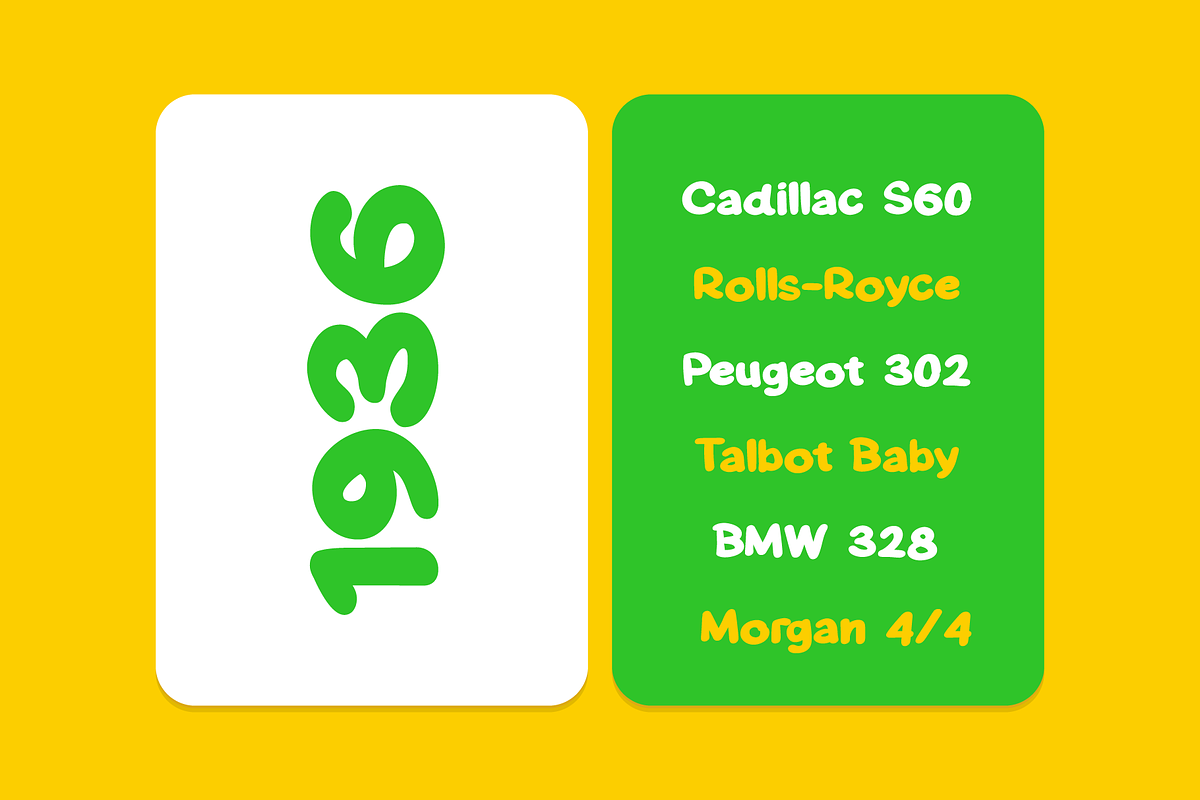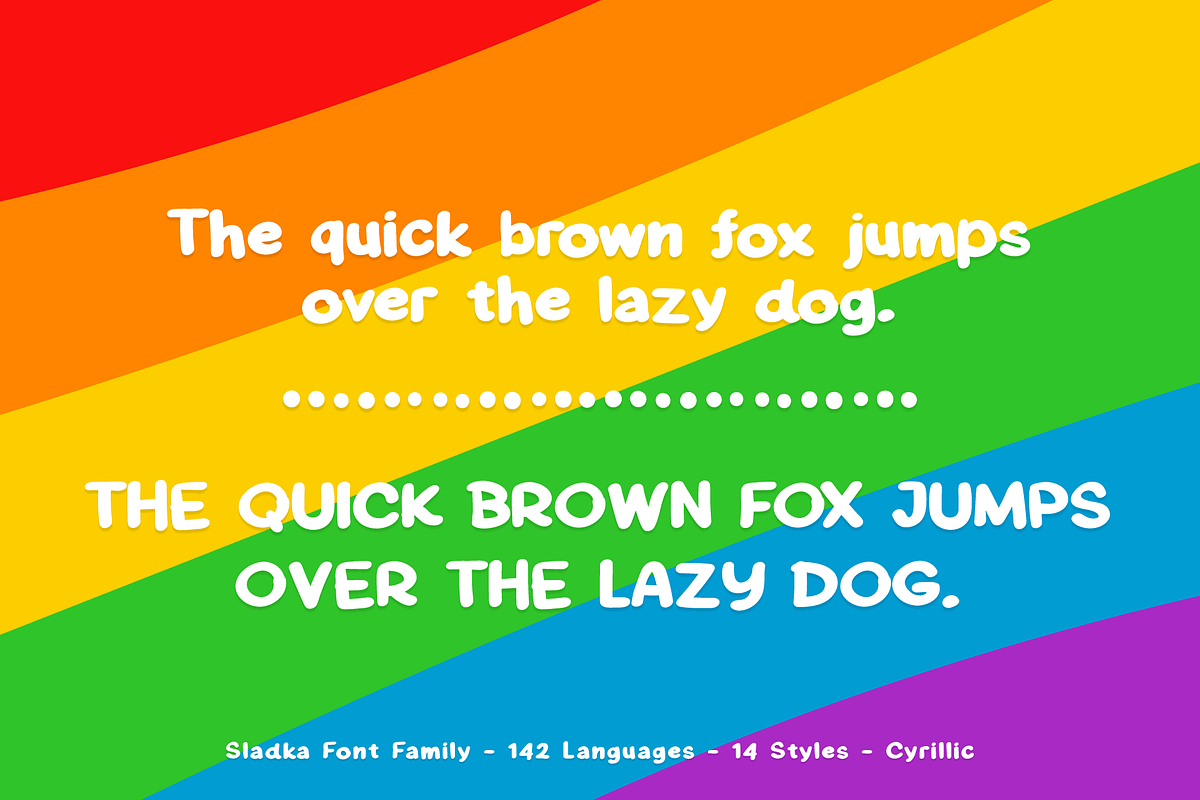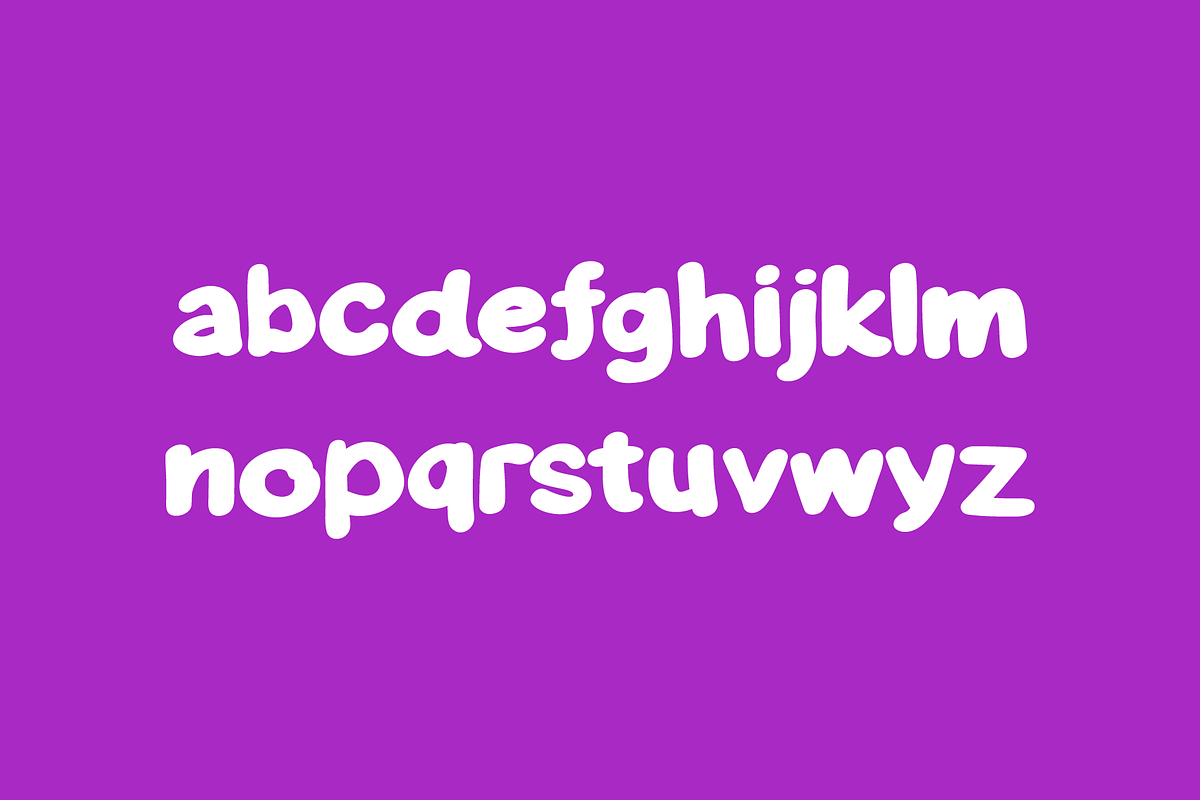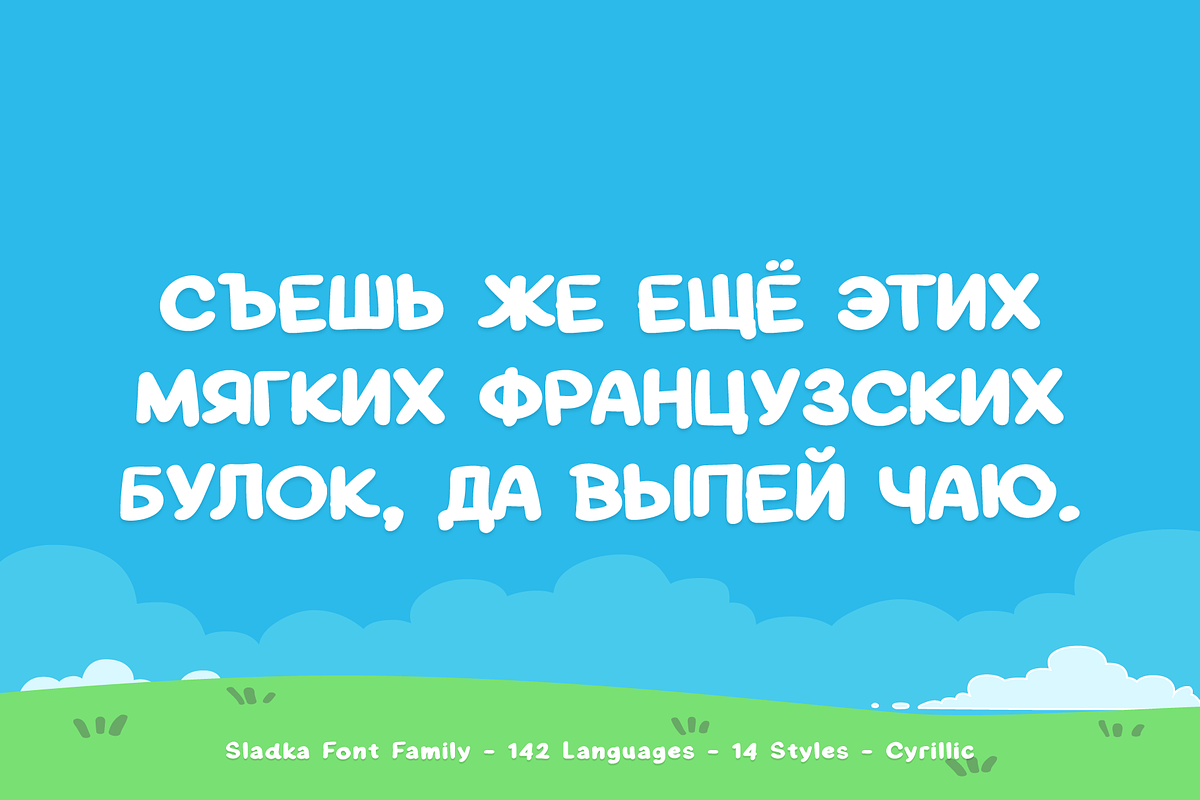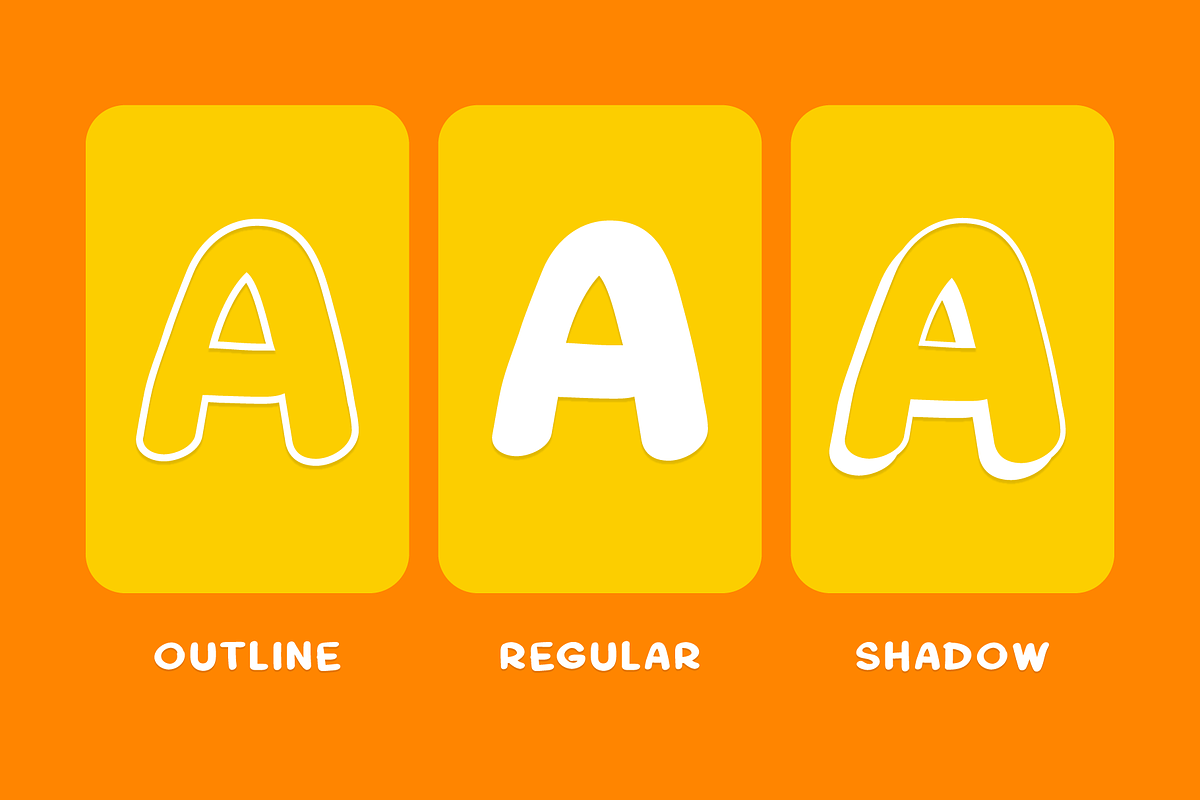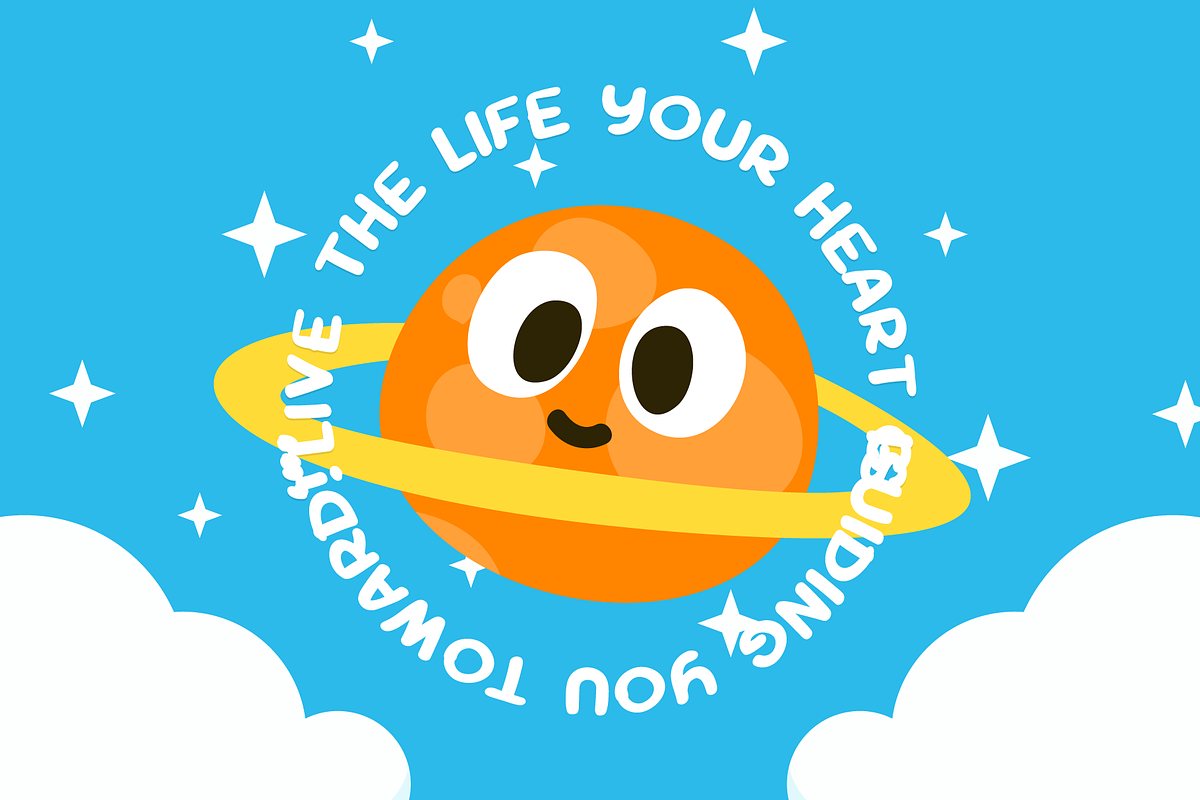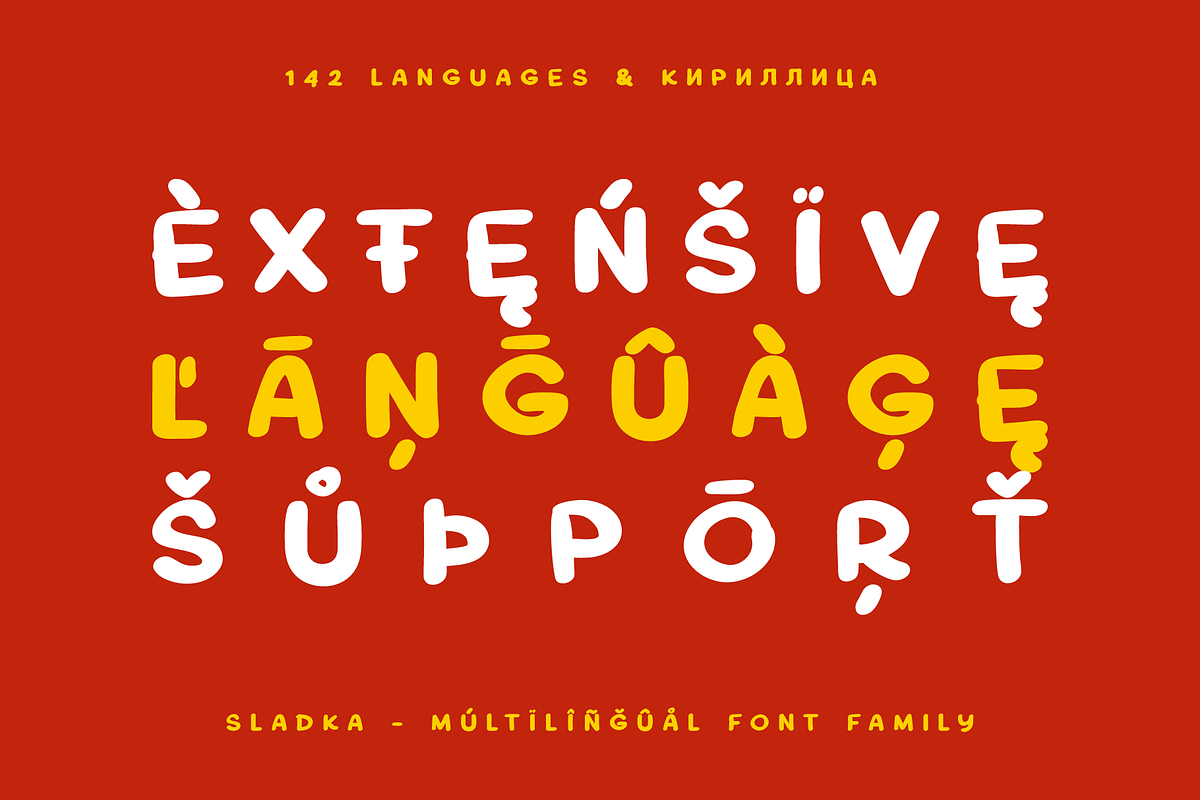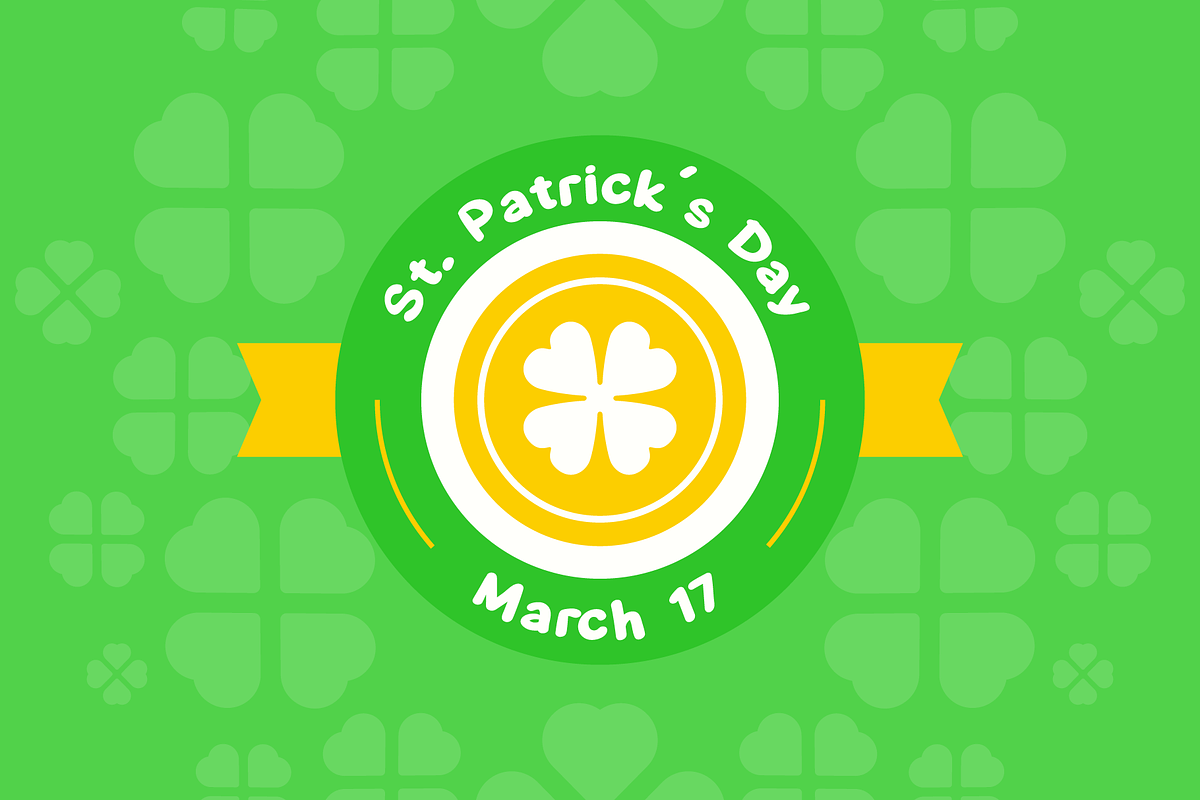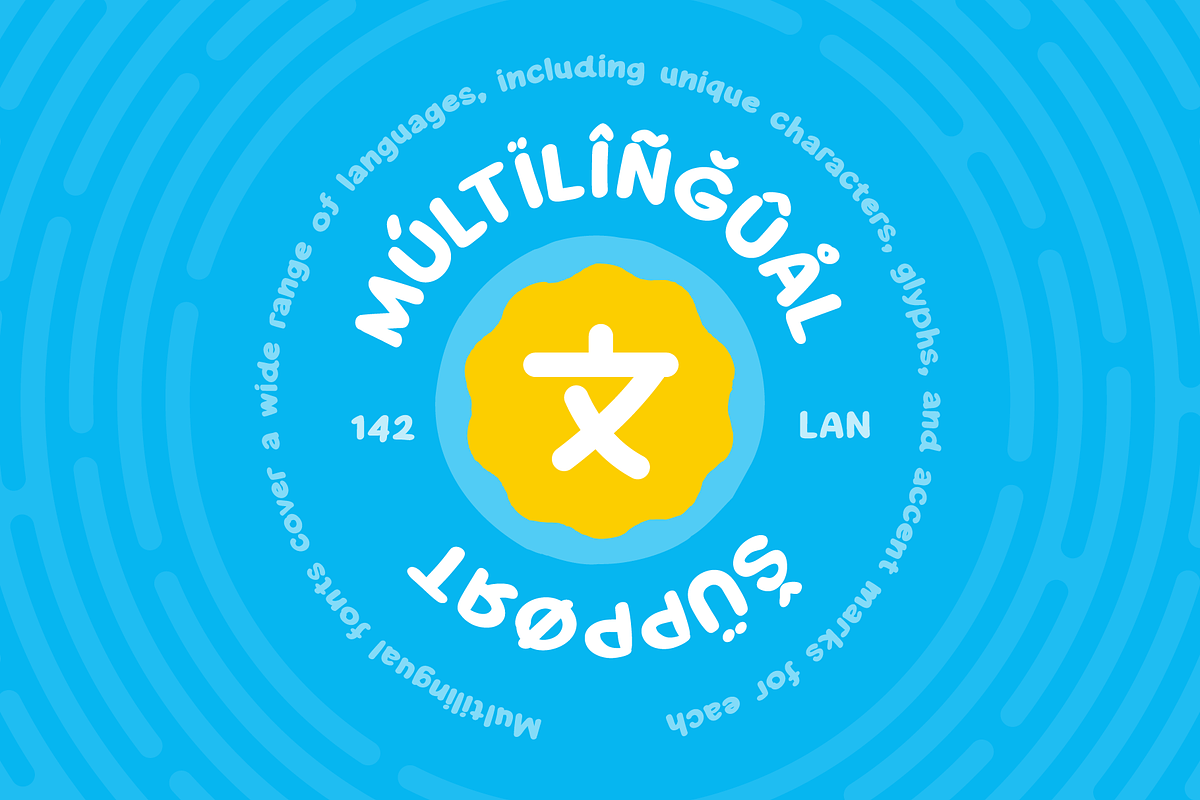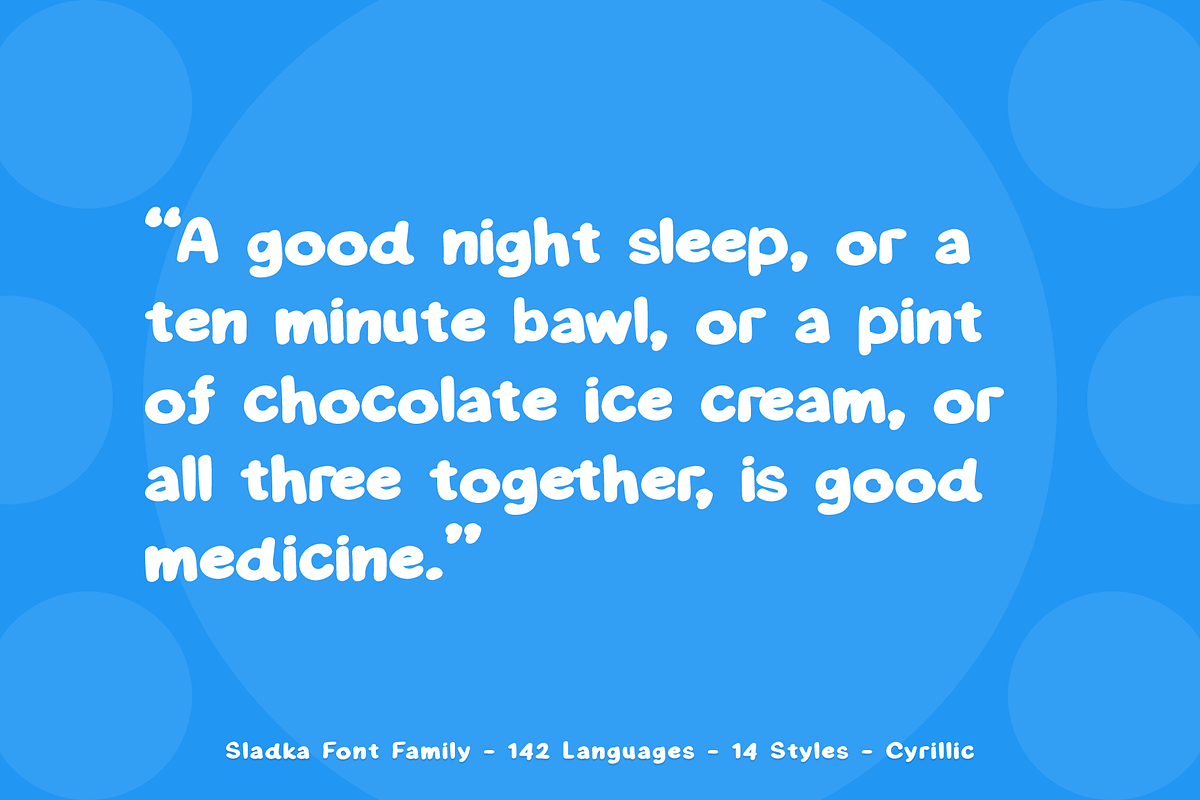
Sladka Cyrillic Script Font Family
Meet Sladka — a cute, bold, handwritten font family designed to brighten your creative world! This playful typeface comes with 14 fun styles (Regular, Italic, Outline, Shadow, Rough variations + italics) and supports 142 languages (Cyrillic & Latin), making it a perfect fit for global projects.
Use Sladka for logos, stickers, quotes, product packaging, greeting cards, social media posts, children’s books, craft projects, and anything that needs a sweet, friendly touch.
Its handcrafted charm and versatile style set make Sladka your new go-to font for expressive, joyful designs.